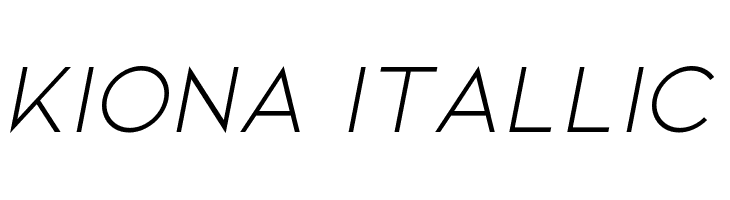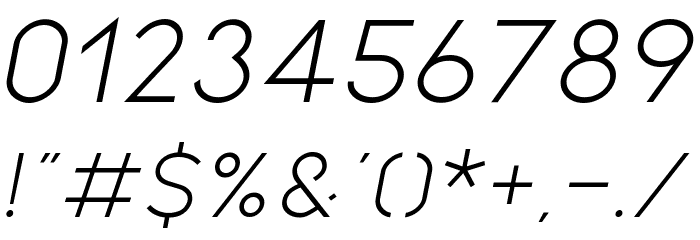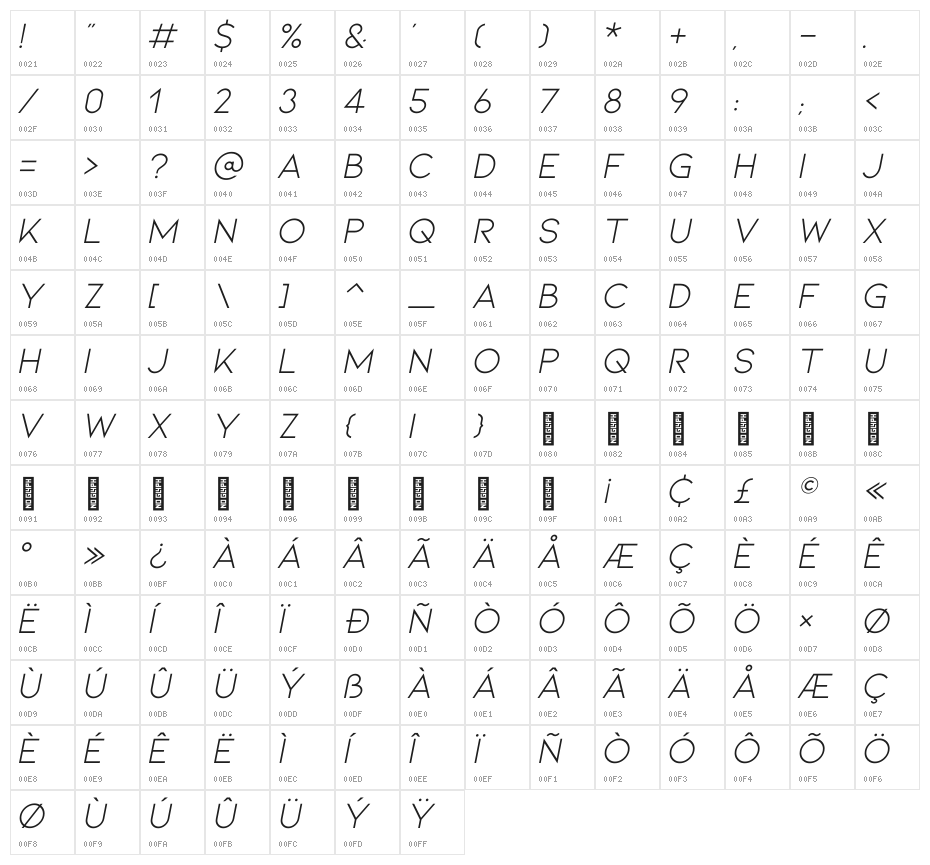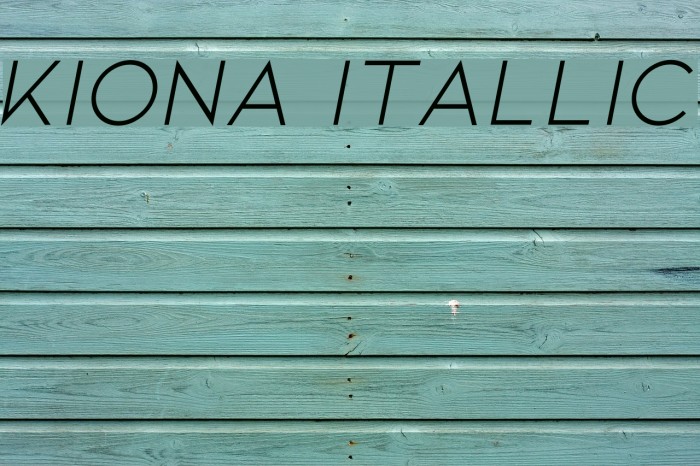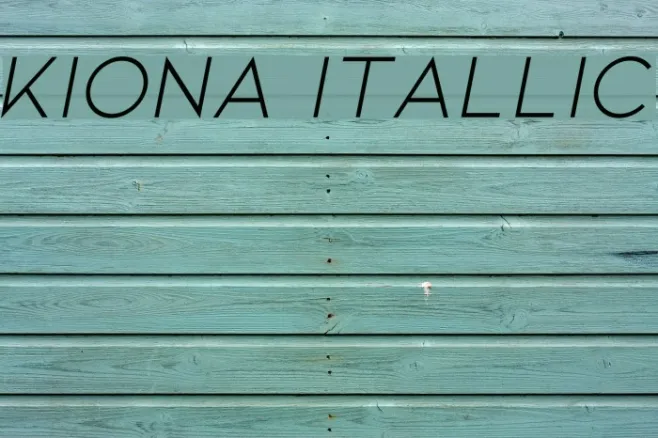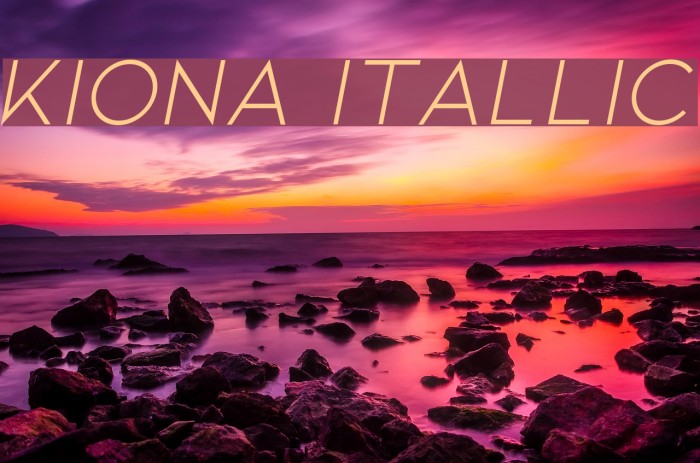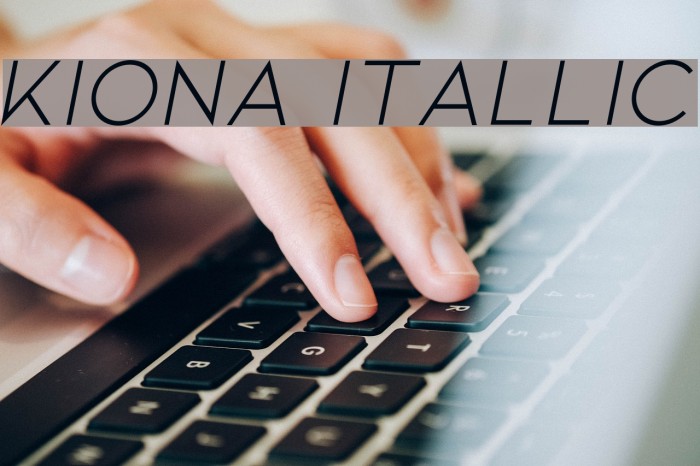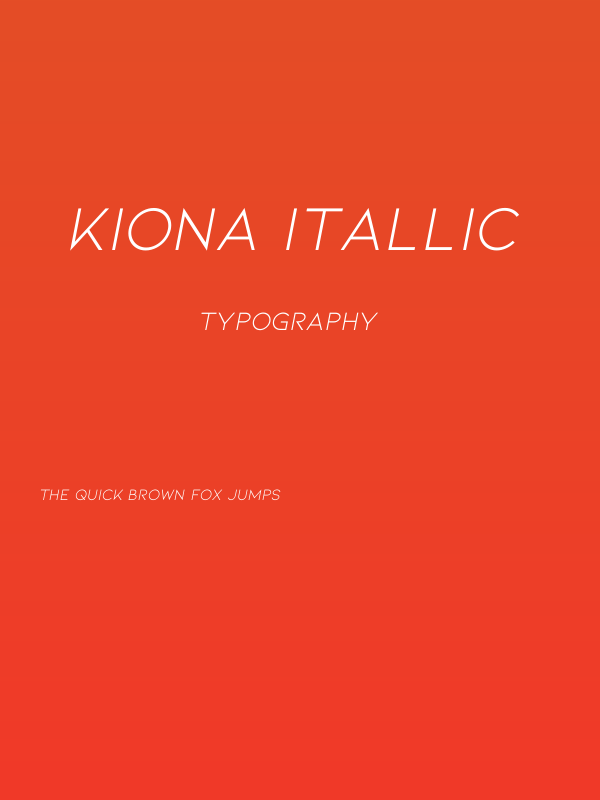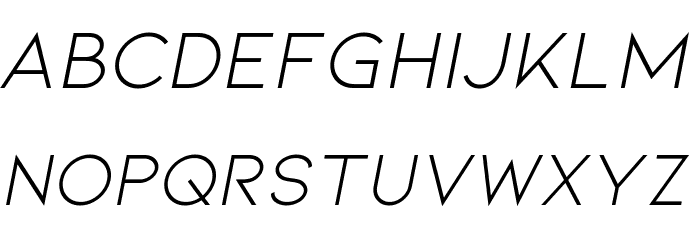
Kiona Itallic Font
Kiona Itallic Description
This font exhibits a sleek and modern design with a distinct italic slant, giving it a dynamic and forward-moving appearance. The characters are clean and geometric, with a consistent stroke width that maintains a minimalist aesthetic. The uppercase and lowercase letters are well-proportioned, offering a harmonious balance that enhances readability. The numerals are straightforward and align seamlessly with the overall style, while the special characters are crafted to complement the font's streamlined look. This font's simplicity and elegance make it versatile for various design applications.
| Proposed Projects | Ideal for branding, editorial design, advertising, and digital interfaces where a contemporary and stylish look is desired. |